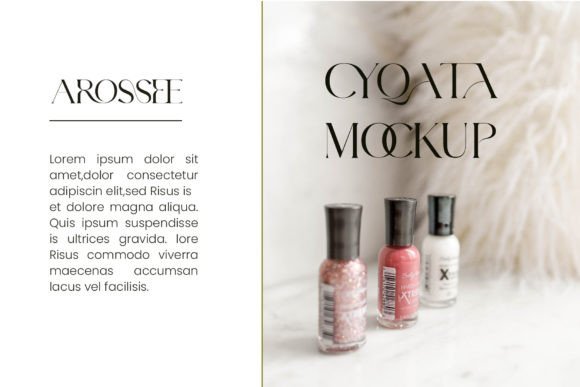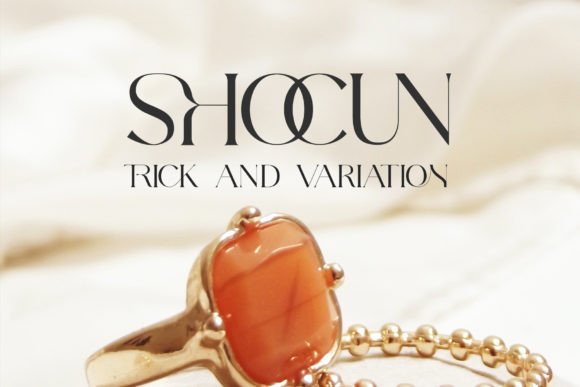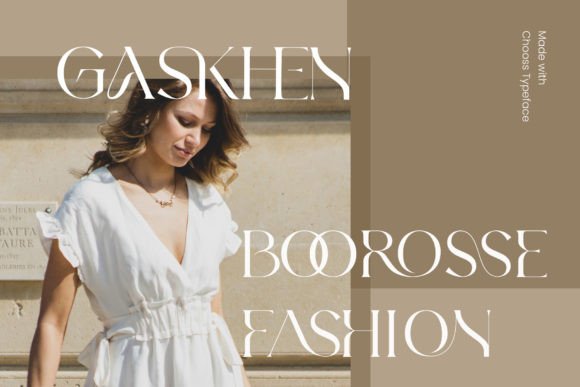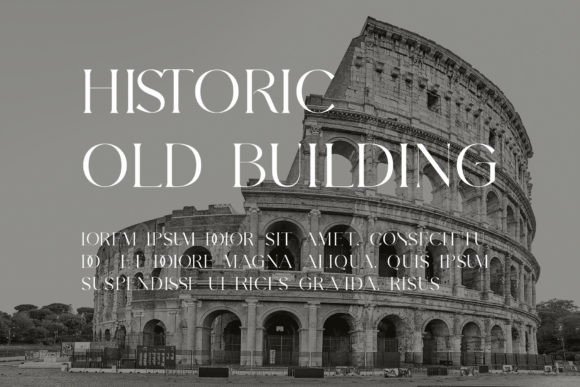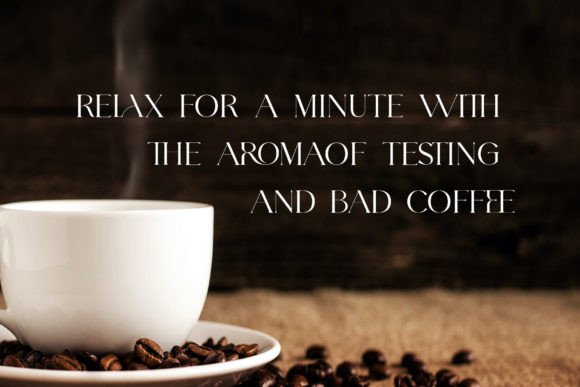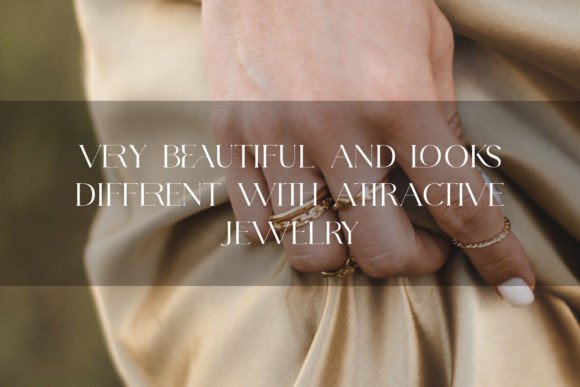
Introduction to Chooss Font
Chooss Serif is a balanced, smooth, elegant and stylish serif font.
It fits perfectly with invitation card designs, company logos, movie titles, business cards, book titles, brand names and various other designs .
Key Features of Chooss Font